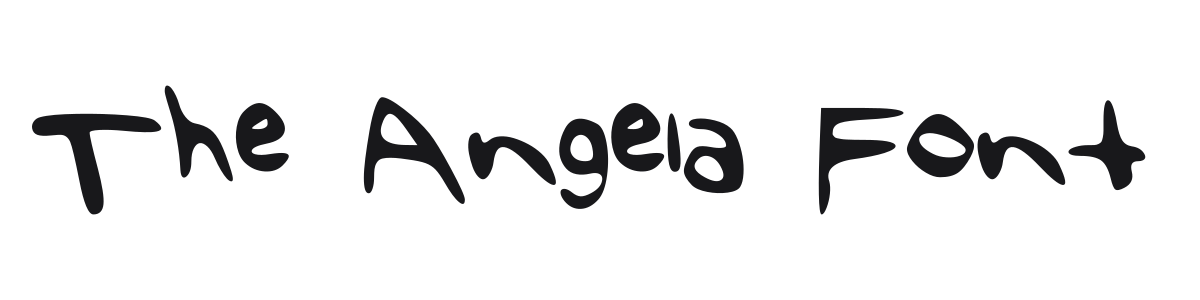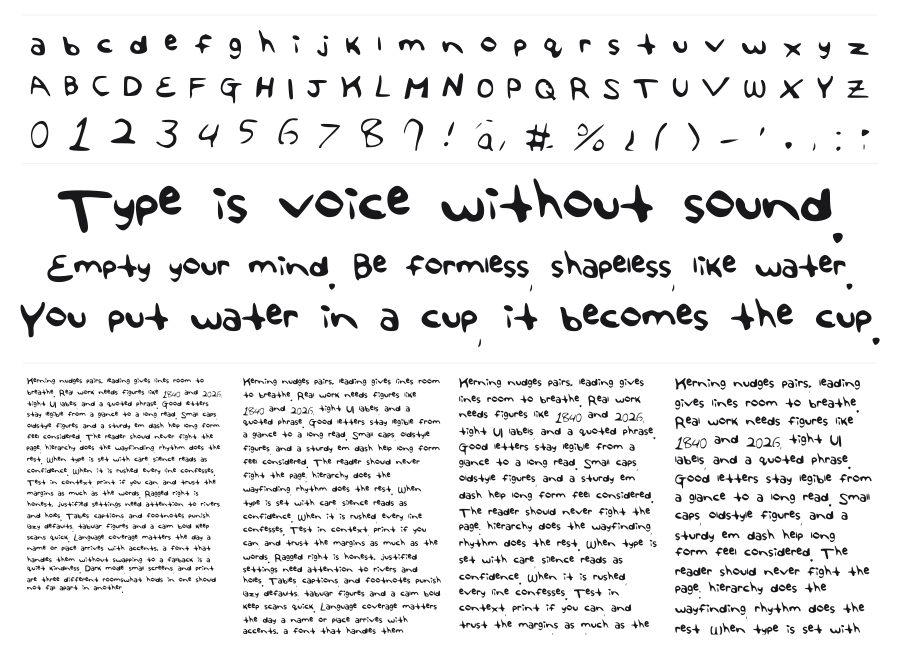
The Angela Font
The Angela Font is a bold, rounded handwritten face from Annie Cresta with a playful looseness that feels like someone lettering with a thick felt-tip pen. The strokes are confident and a little quirky, giving each word a casual, off-the-cuff personality that works well for headlines, packaging, and informal branding where you want something that reads as genuinely hand-done.